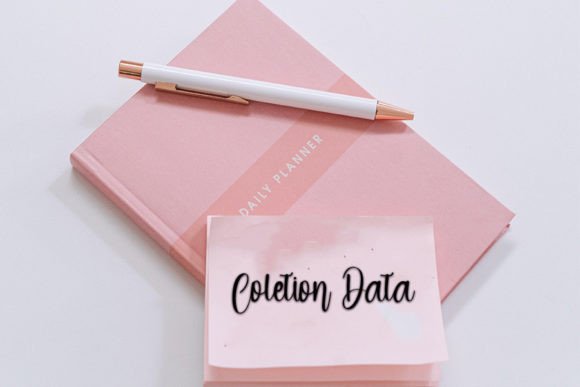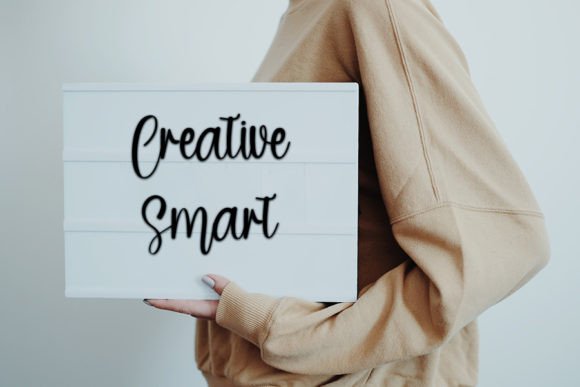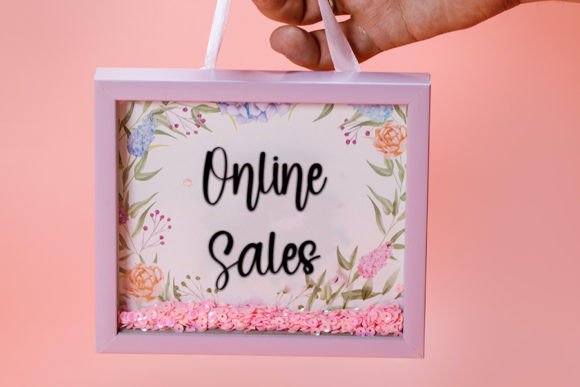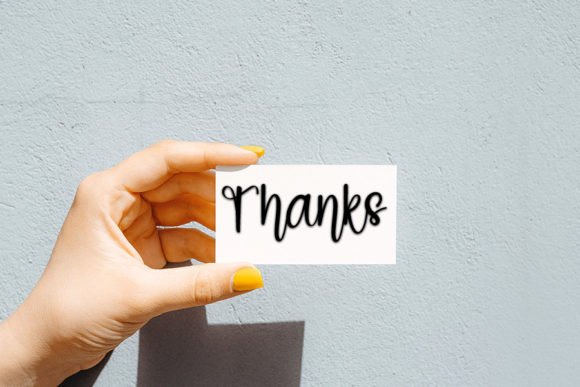
Discover the Timeless Elegance of Hello Friends Font
Have you ever been in the midst of a creative project, and suddenly, the perfect font pops into your mind? For designers, this moment is pure magic. It’s the spark that sets your imagination ablaze, and the foundation upon which your masterpiece is built. For many, that spark comes in the form of the Hello Friends Font – a beautiful, handwritten font that exudes elegance and sophistication.
This stunning font is perfect for any project that demands a touch of warmth and personality. With its distinct and timeless style, the Hello Friends Font is sure to captivate your audience and leave a lasting impression. Whether you’re working on a branding project, a wedding invitation, or a social media campaign, this font is a valuable asset in your design toolkit.
Hello Friends Font Key Features
- Font Family: Hello Friends Font is a unique, handwritten font designed to evoke a friendly and approachable feel.
- Unique Characteristics: The font features a playful, cursive script with subtle flourishes and irregularities, giving it a hand-drawn feel.
Hello Friends Font Review
Hello Friends Font is a charming script font that can add a personal touch to your designs. Here’s what I think of it:
- Quirky and friendly vibe: This font is perfect for designs that need a human touch, like social media graphics, invitations, or product packaging.
- Good for hand-written text: Hello Friends Font is great for reproducing hand-written text, making it ideal for quotes, lyrics, or other text that needs to feel personal.
- Works well in small sizes: This font holds up well even at small sizes, making it suitable for designs where text needs to be concise.
- Lack of versatility: Hello Friends Font is best suited for casual, friendly designs. It may not be the best choice for formal or professional projects.
- Not ideal for large blocks of text: This font can be difficult to read when used for large blocks of text, so it’s best to use it sparingly.
Overall, Hello Friends Font is a great choice for designs that need a personal, friendly touch. While it has some limitations, it’s a fun and quirky font that can add a lot of character to your projects.
The “Hello Friends Font” is a playful, cursive font that is perfect for:
- Creating invitations and party decorations.
- Designing social media graphics and blog posts.
- Adding a personal touch to your resume or business cards.
Alternatives to “Hello Friends Font” for Designers
Great Vibes is a beautiful, handwritten script font perfect for creating a friendly and approachable atmosphere. It’s ideal for use in headings, titles, and other prominent text elements. Great Vibes is a more elegant and refined alternative to Hello Friends Font, making it suitable for high-end branding and design projects.
Comparison: While Hello Friends Font has a more casual and playful feel, Great Vibes Font is more sophisticated and elegant. Great Vibes is also more versatile, suitable for a wider range of design applications.
Carolyna Pro is a modern, elegant script font that’s perfect for creating a sense of luxury and sophistication. It’s ideal for use in branding, packaging, and other high-end design projects. Carolyna Pro is a more polished and refined alternative to Hello Friends Font, making it suitable for clients who want a more premium look.
Comparison: While Hello Friends Font has a more casual and approachable feel, Carolyna Pro Font is more luxurious and sophisticated. Carolyna Pro is also more versatile, suitable for a wider range of design applications, including business and corporate branding.
Alex Brush is a beautiful, elegant script font that’s perfect for creating a sense of warmth and approachability. It’s ideal for use in headings, titles, and other prominent text elements. Alex Brush is a more refined and sophisticated alternative to Hello Friends Font, making it suitable for high-end branding and design projects.